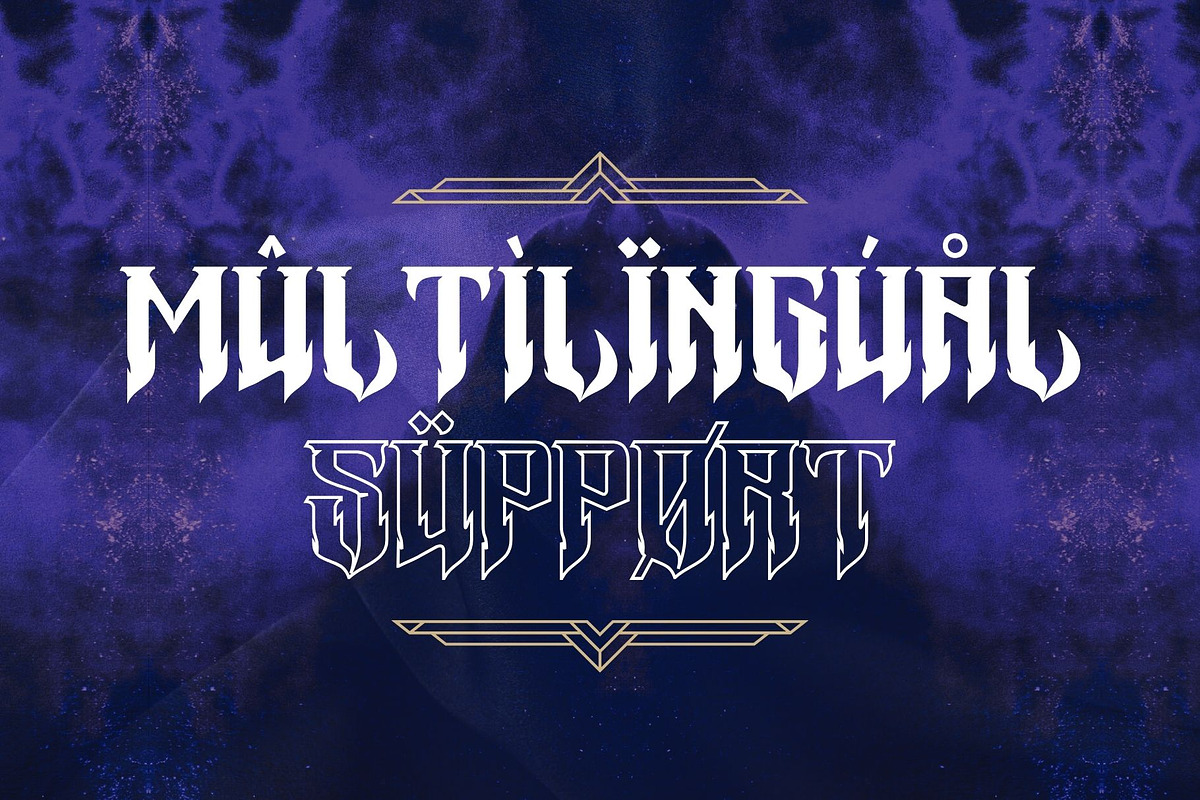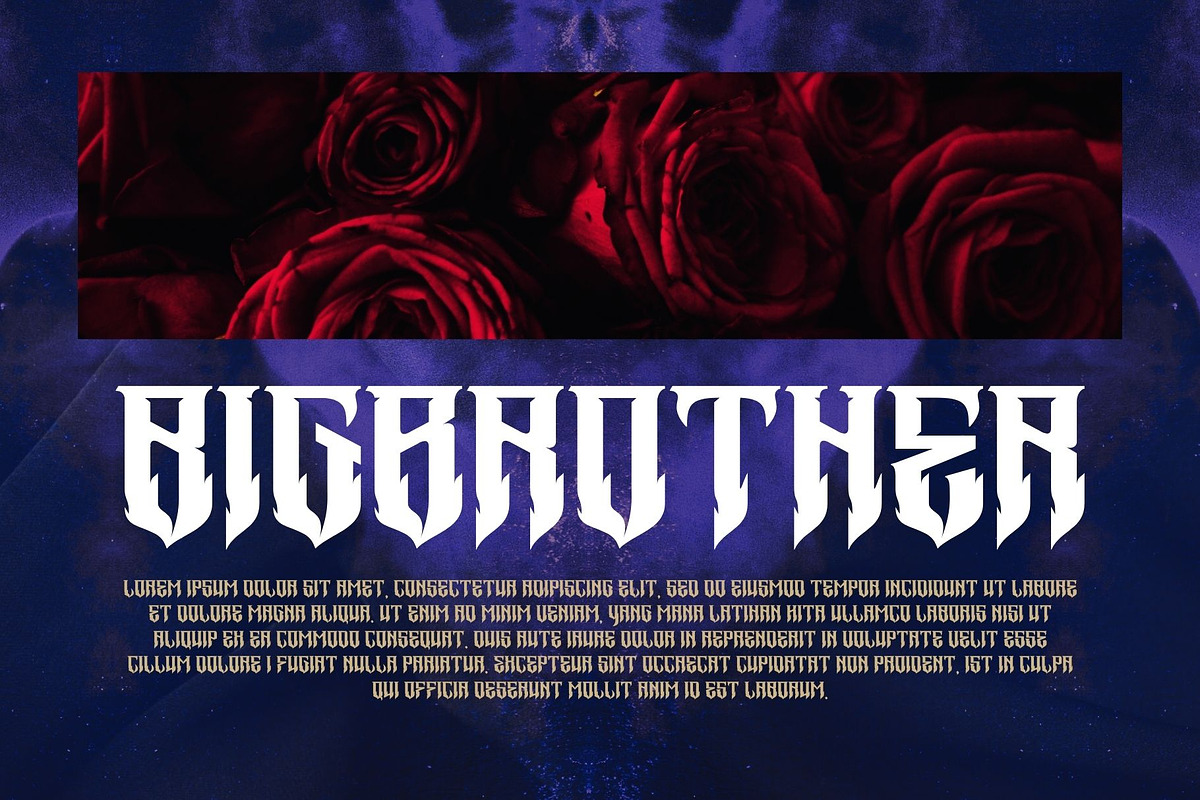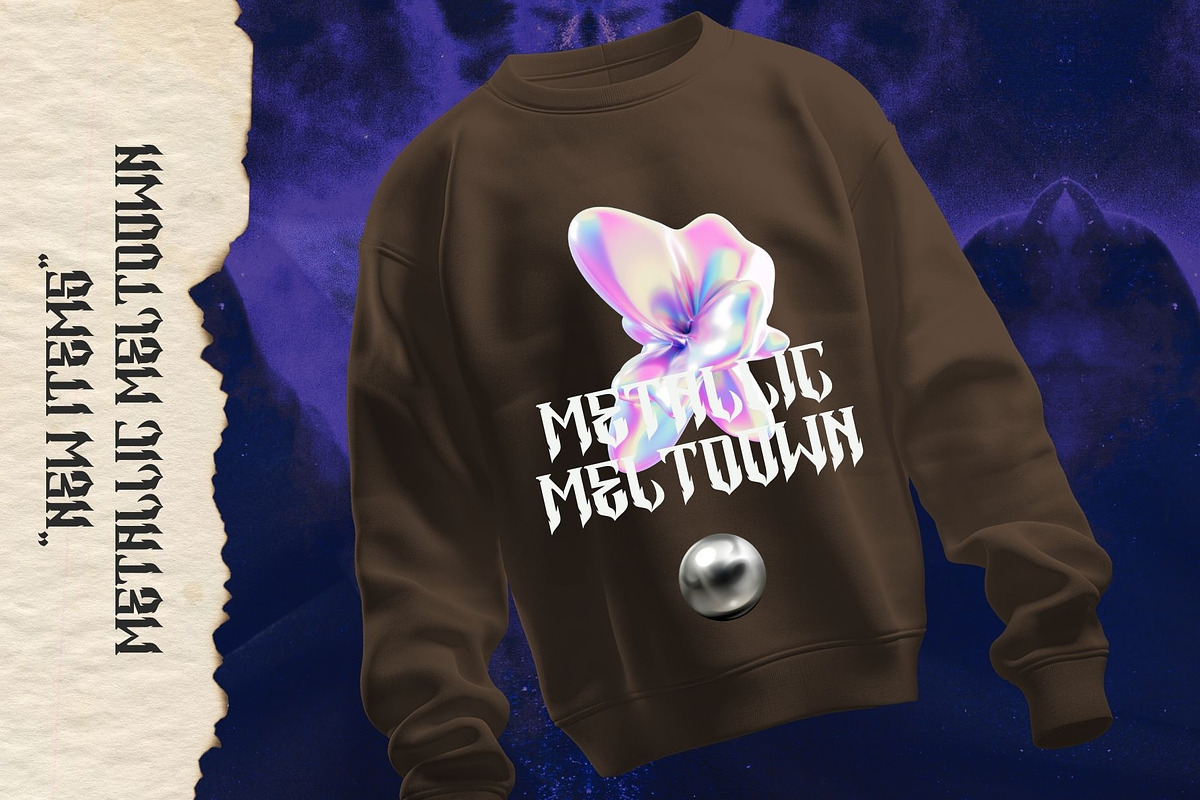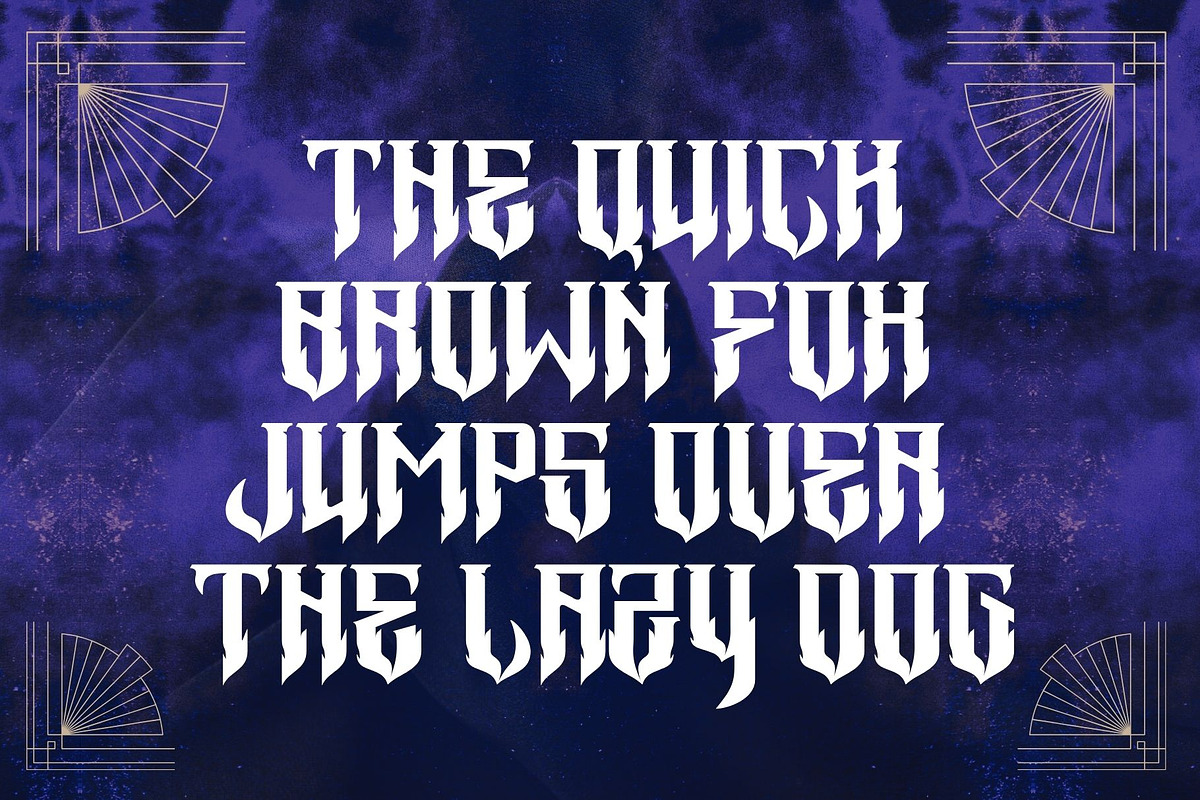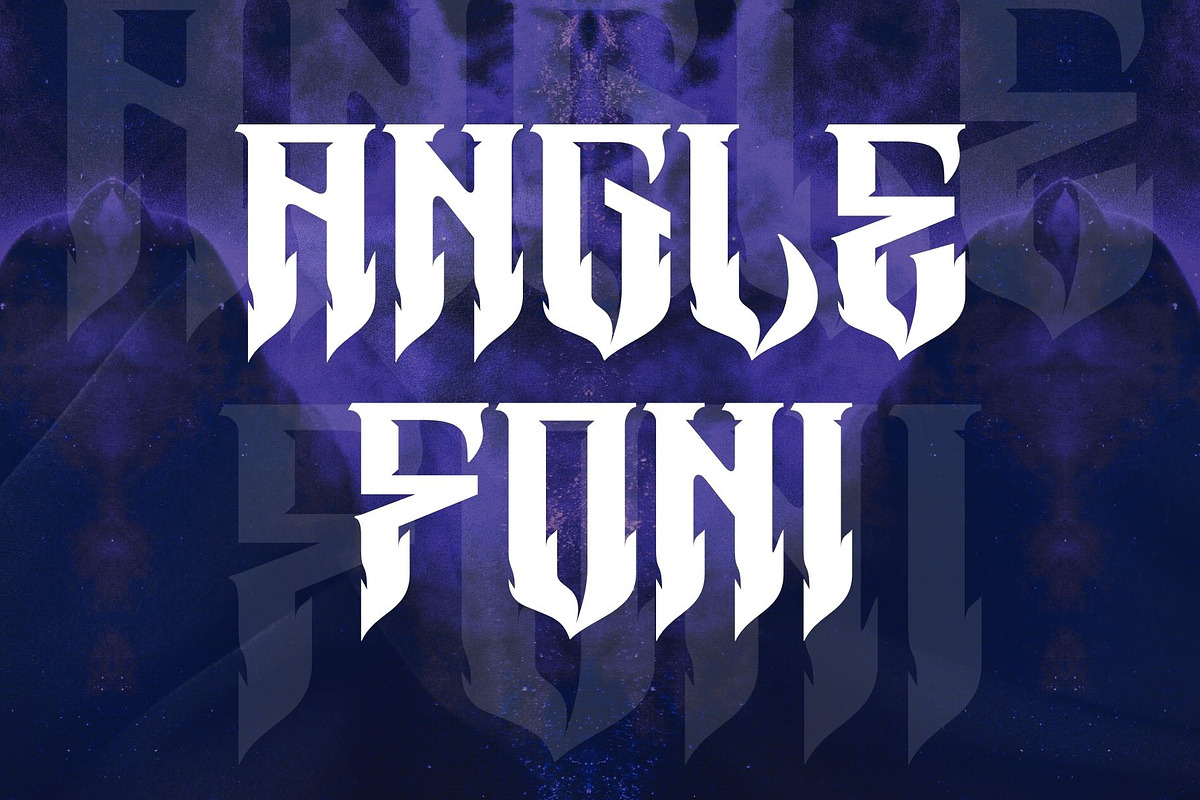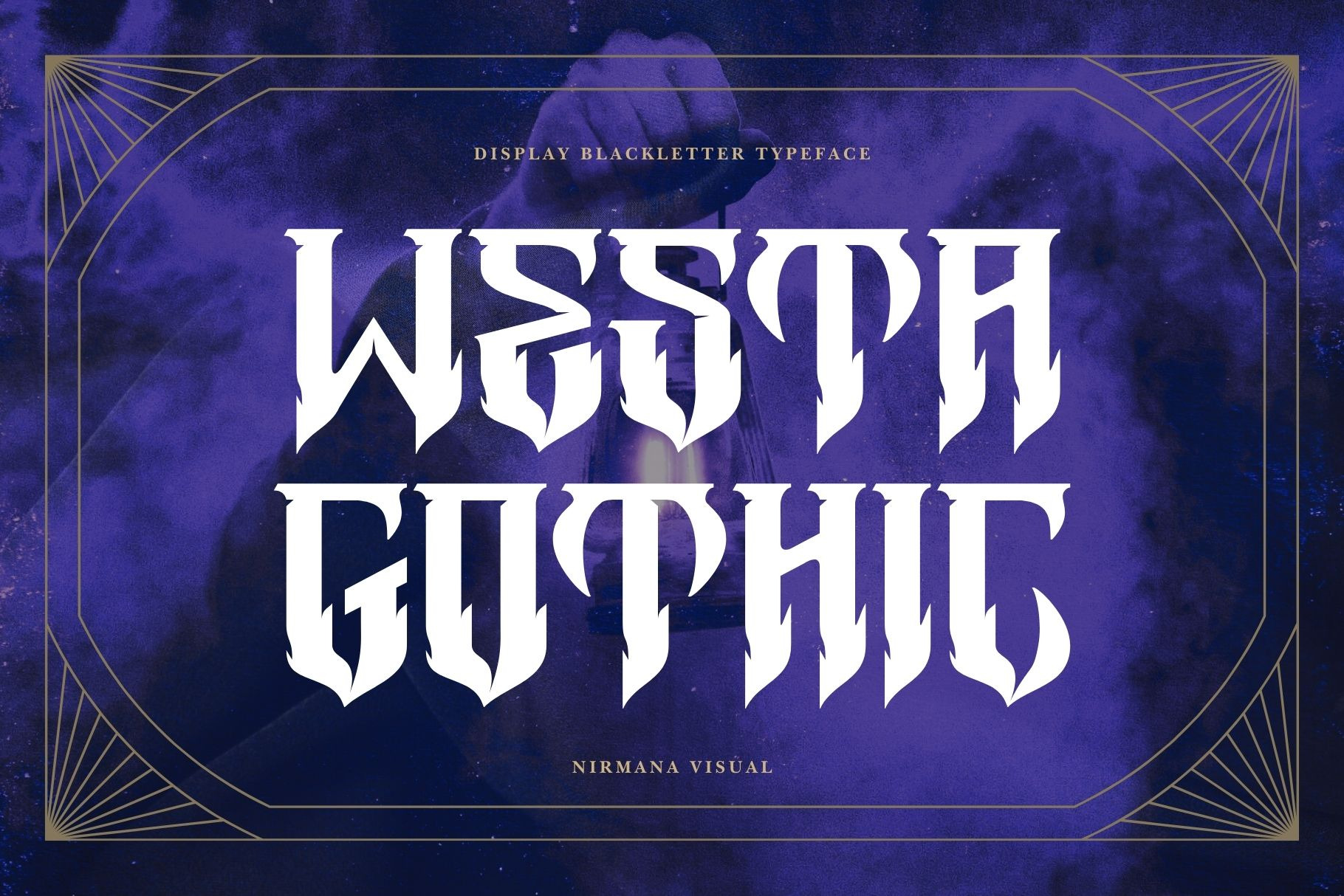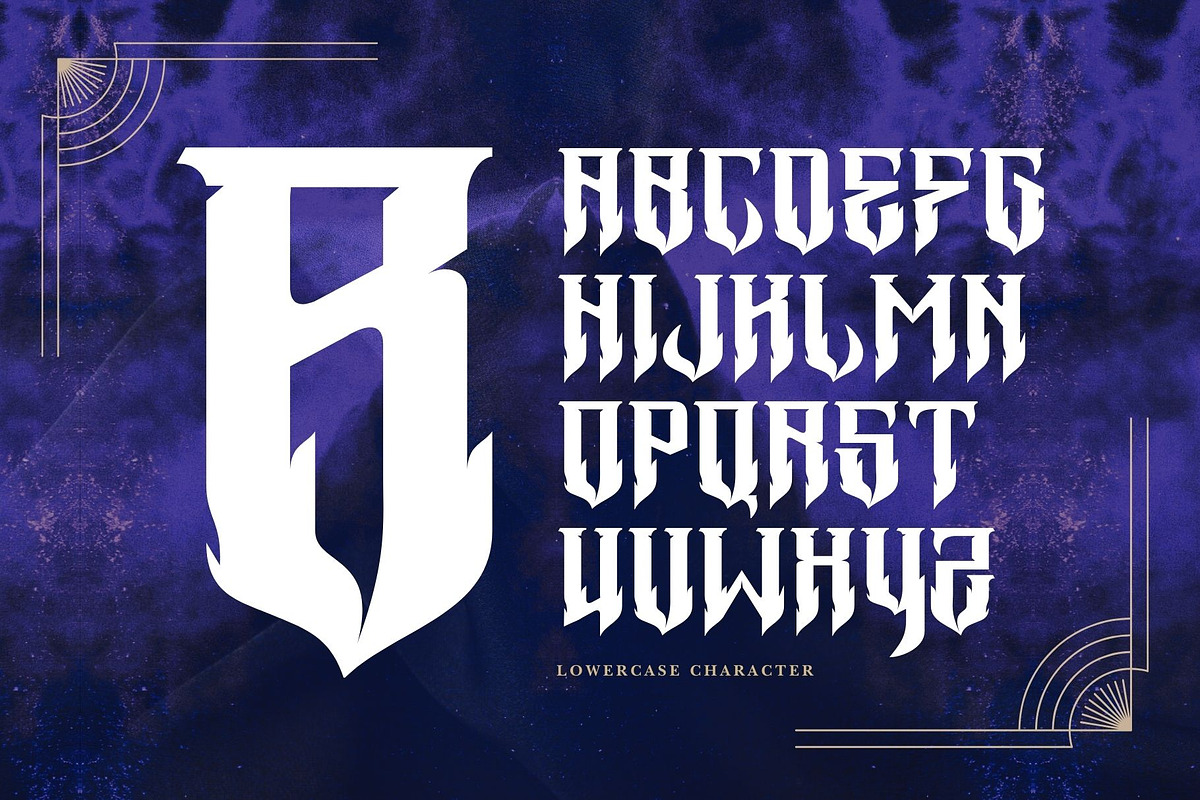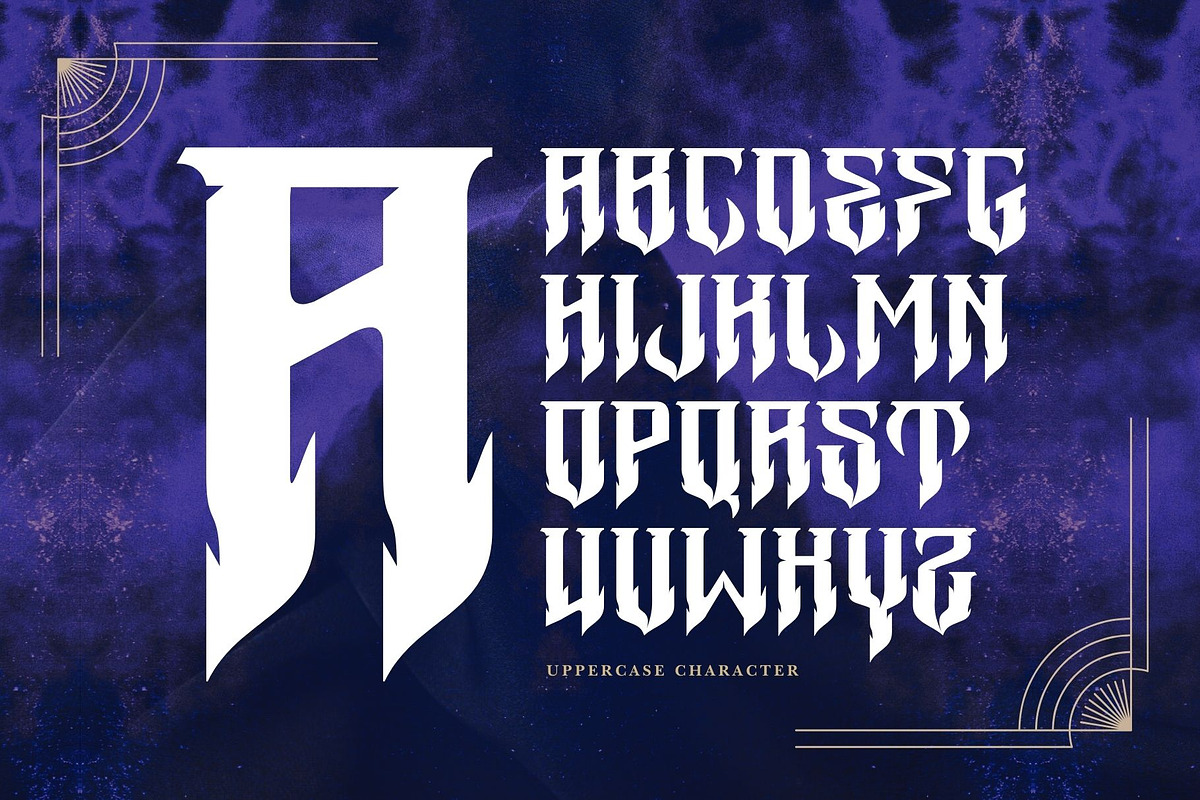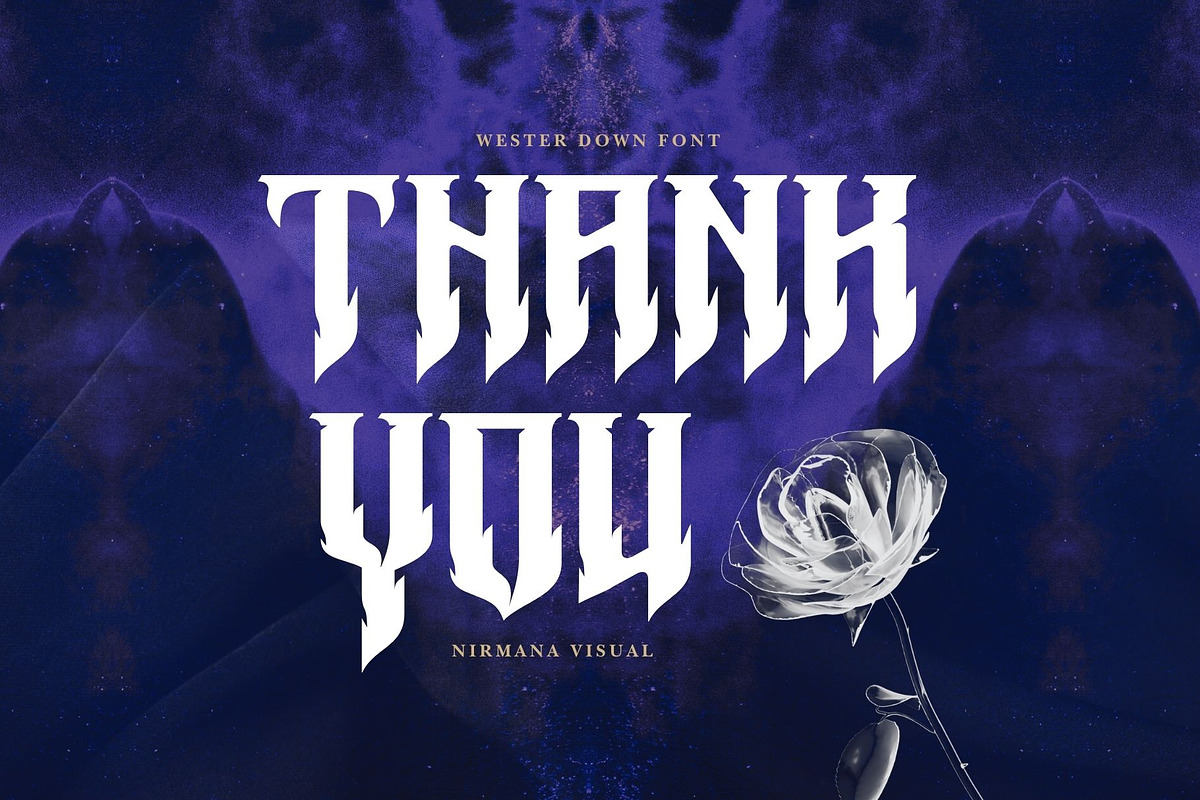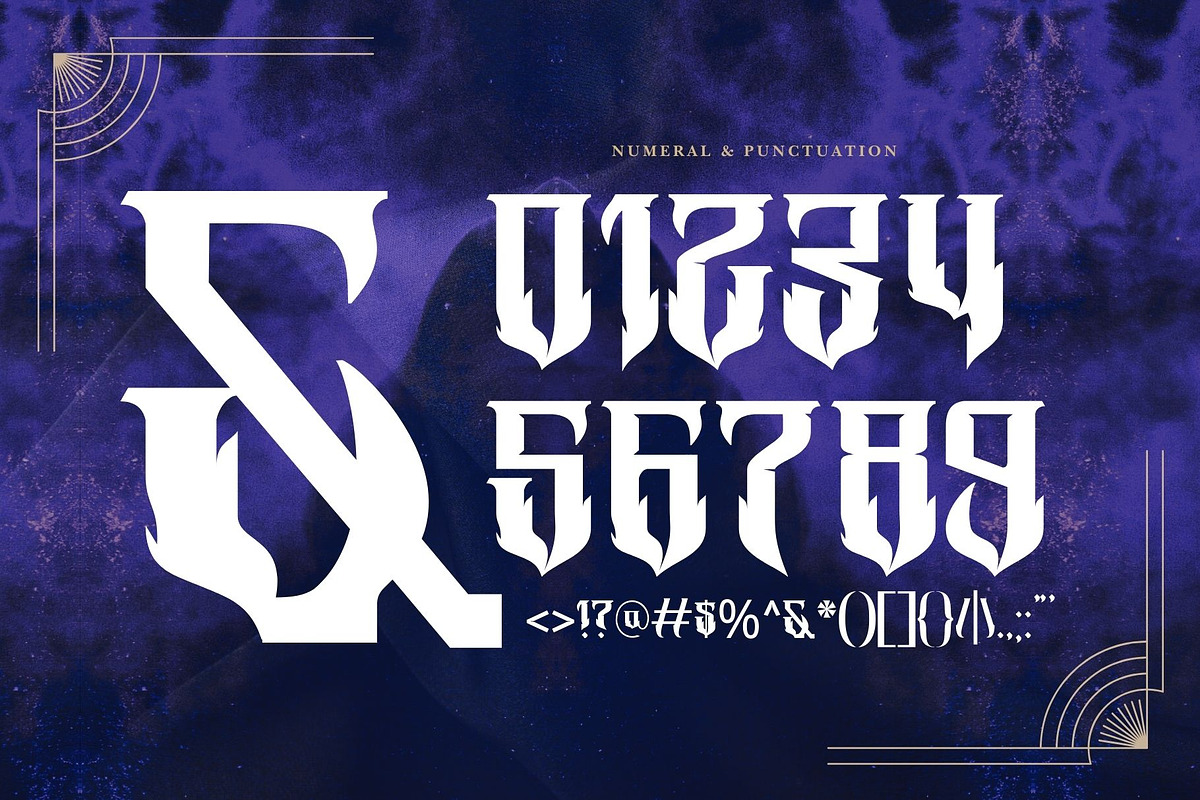
Westa Gothic - Blackletter Font
Westa Gothic offers beautiful typographic harmony for a diversity of design projects, including logos & branding, social media posts, advertisements & product designs.